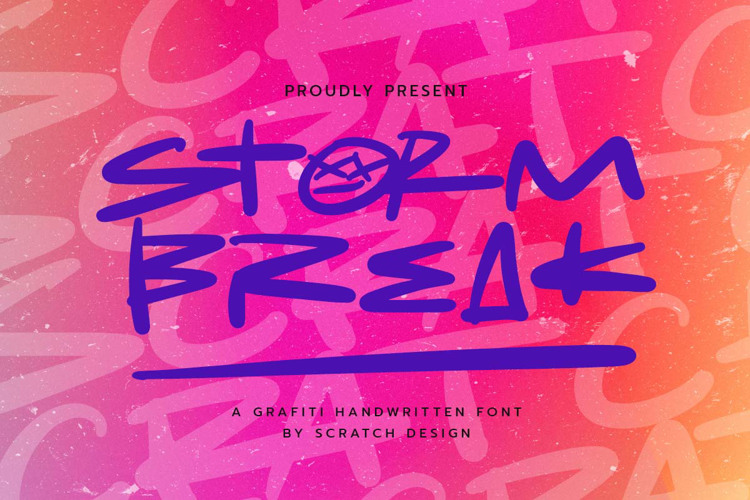
Storm Break Font
Introducing STORM BREAK! A graffiti handwritten font with a unique style. This font has a very strong character, bold, and natural and has a youth energetic street style!
STORM BREAK will be the perfect font for your logo, branding projects, social media posts, product packaging, product designs, label, photography, watermark, invitation, advertisements, stationery, the headline of the magazine, website, t-shirts, hoodies, and any projects that need a strong font and raw, street style characteristic of the design. This font (FULL SET) comes with upper and lowercase characters, Numerals, Marks, Punctuation, alternates, swashes, ligatures and multi-language support.